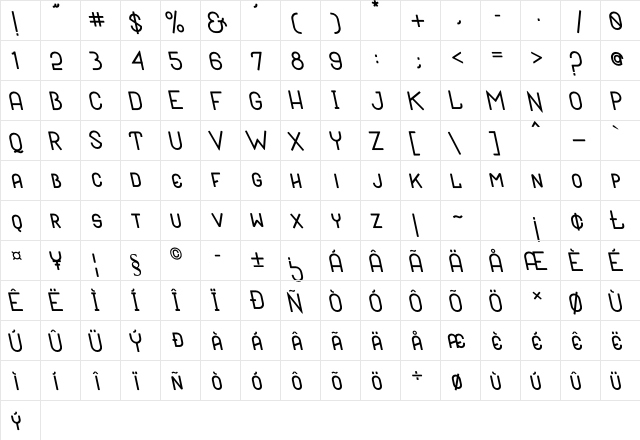
Black Hole Back Italic Regular
Design Context for Black Hole Back Italic Typeface
Black Hole Back Italic offers clean, dependable letterforms without strong stylistic allegiance, making it a practical choice for designers who need flexibility. Its italic angle brings a sense of urgency and motion to the letterforms.
Pro Tip: Try Black Hole Back Italic for annotation and caption copy alongside an upright companion — the contrast in angle creates a dynamic but ordered typographic system.